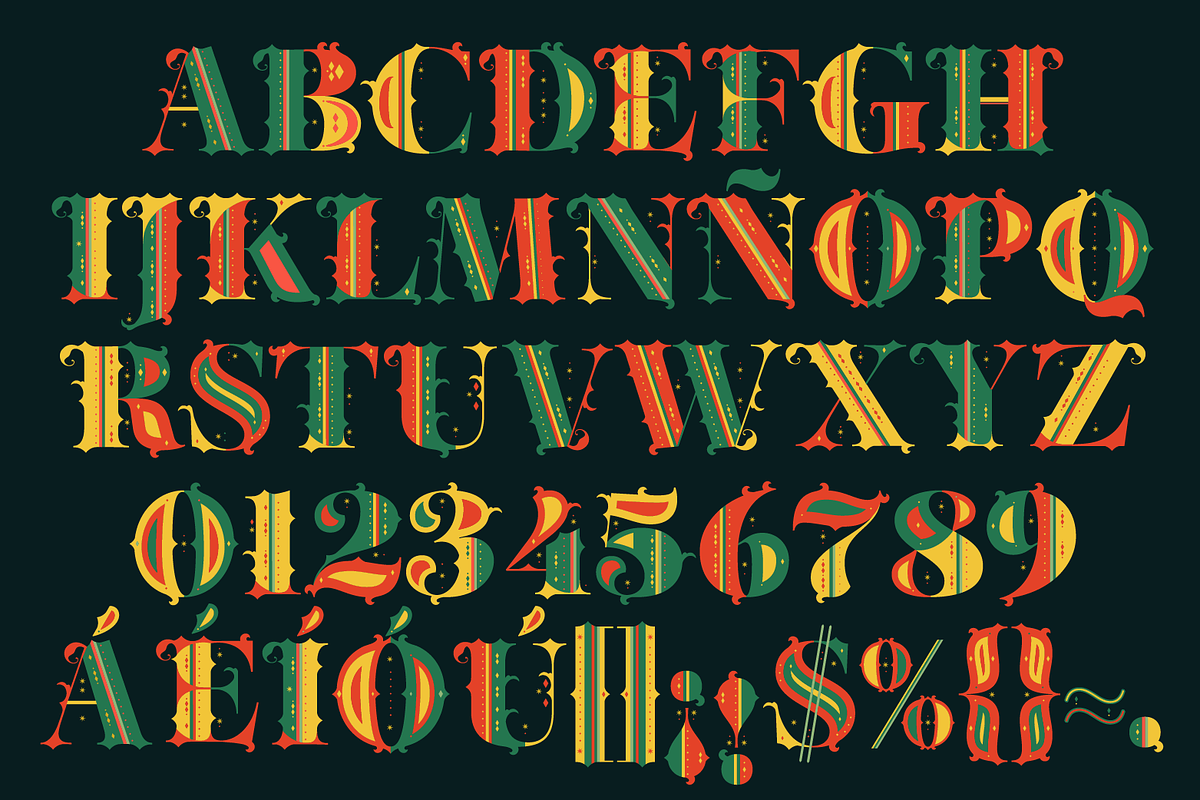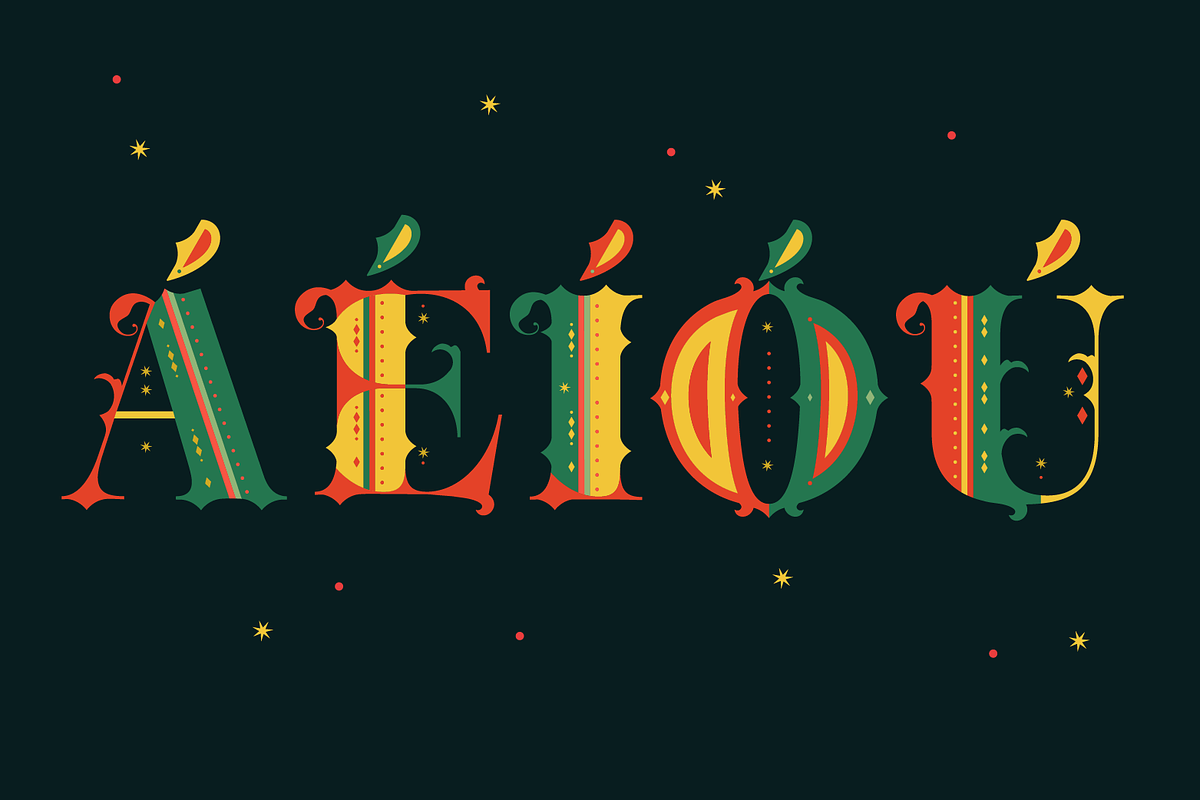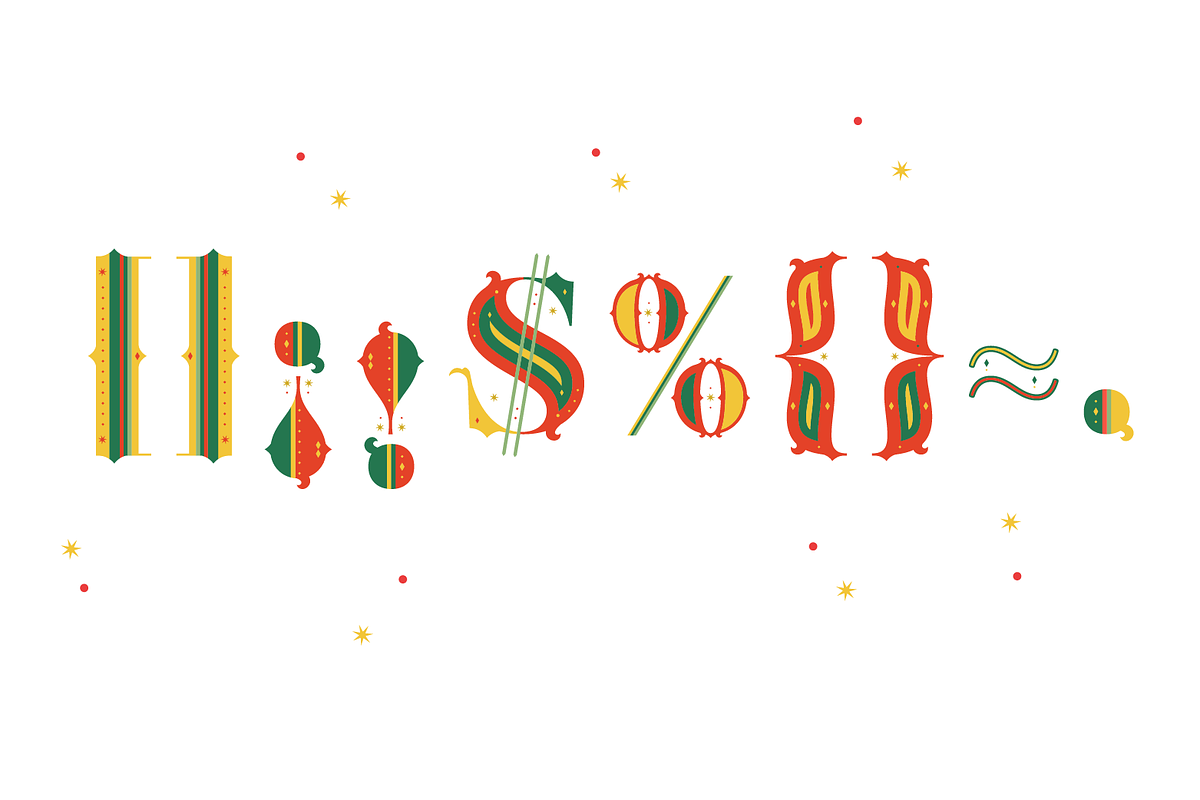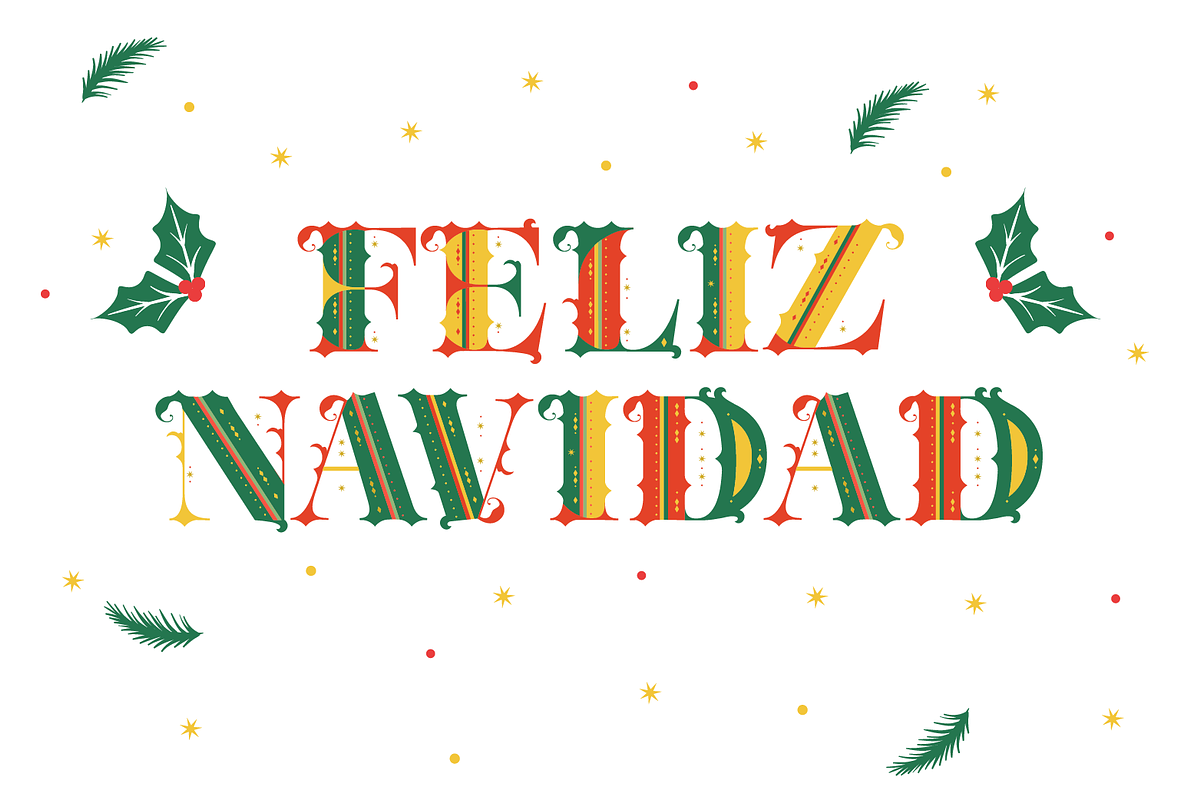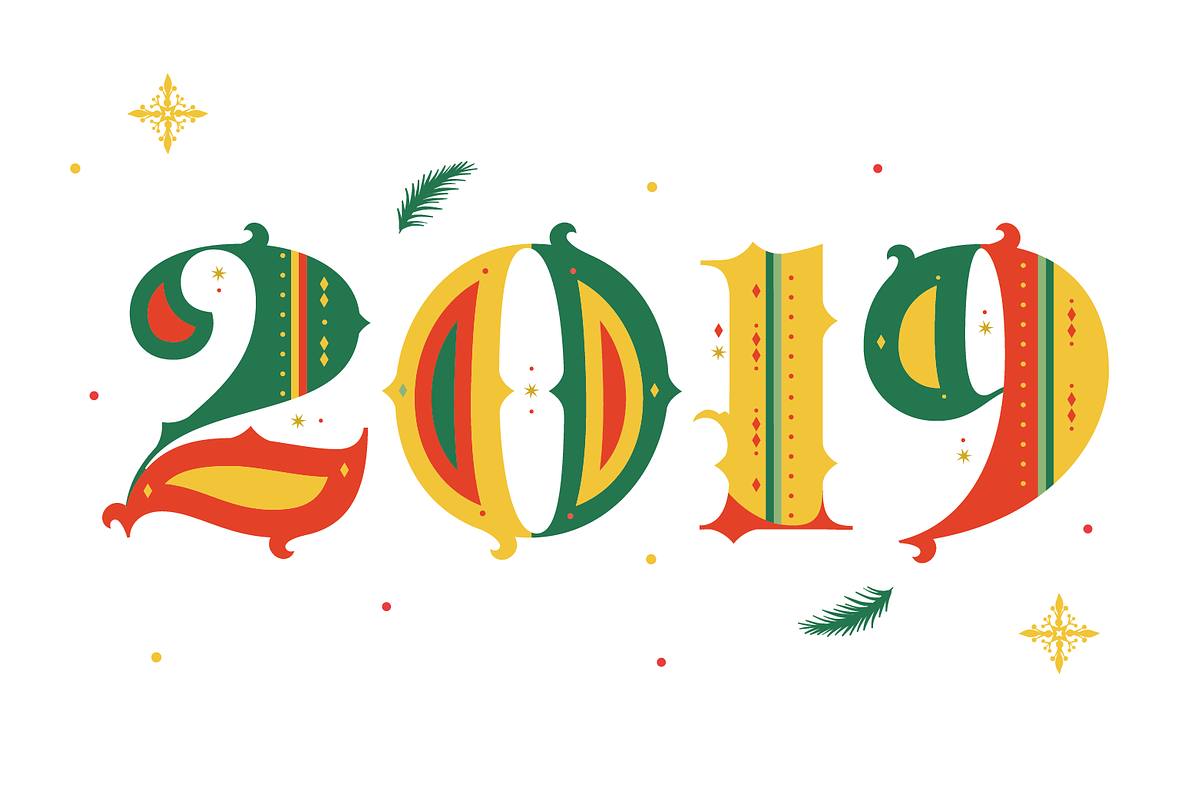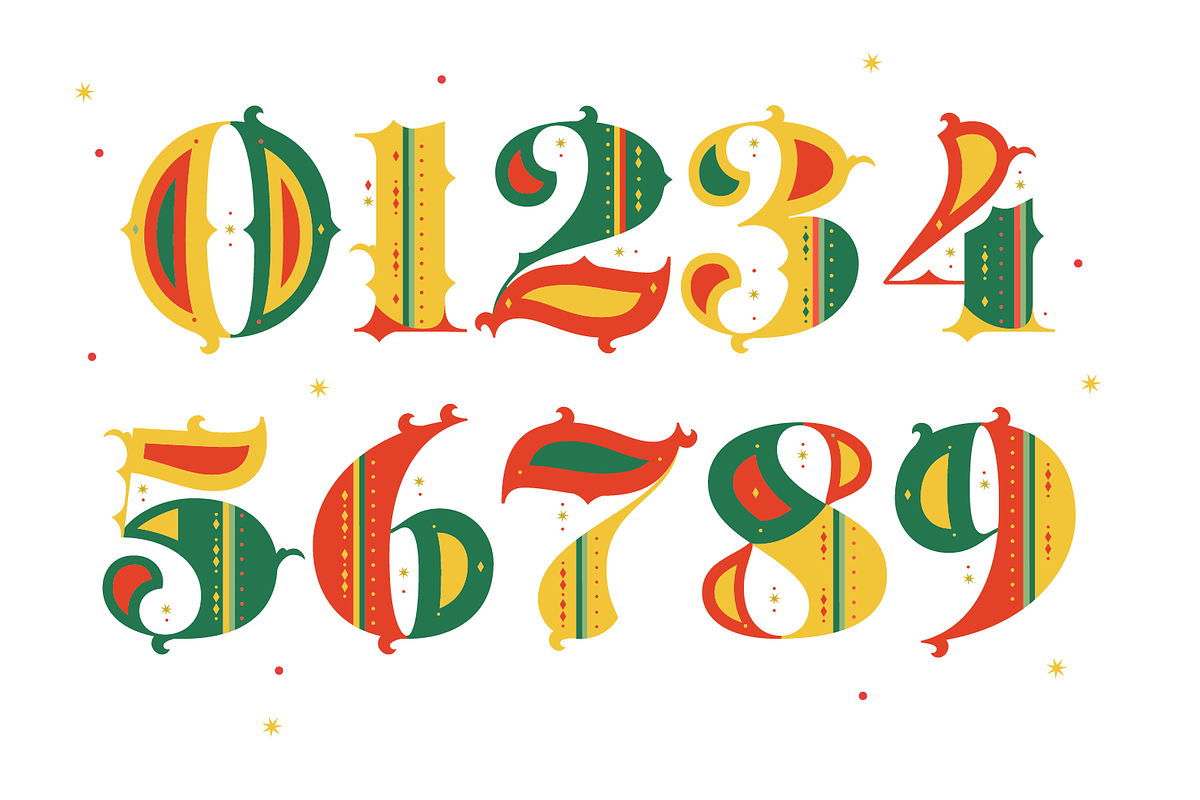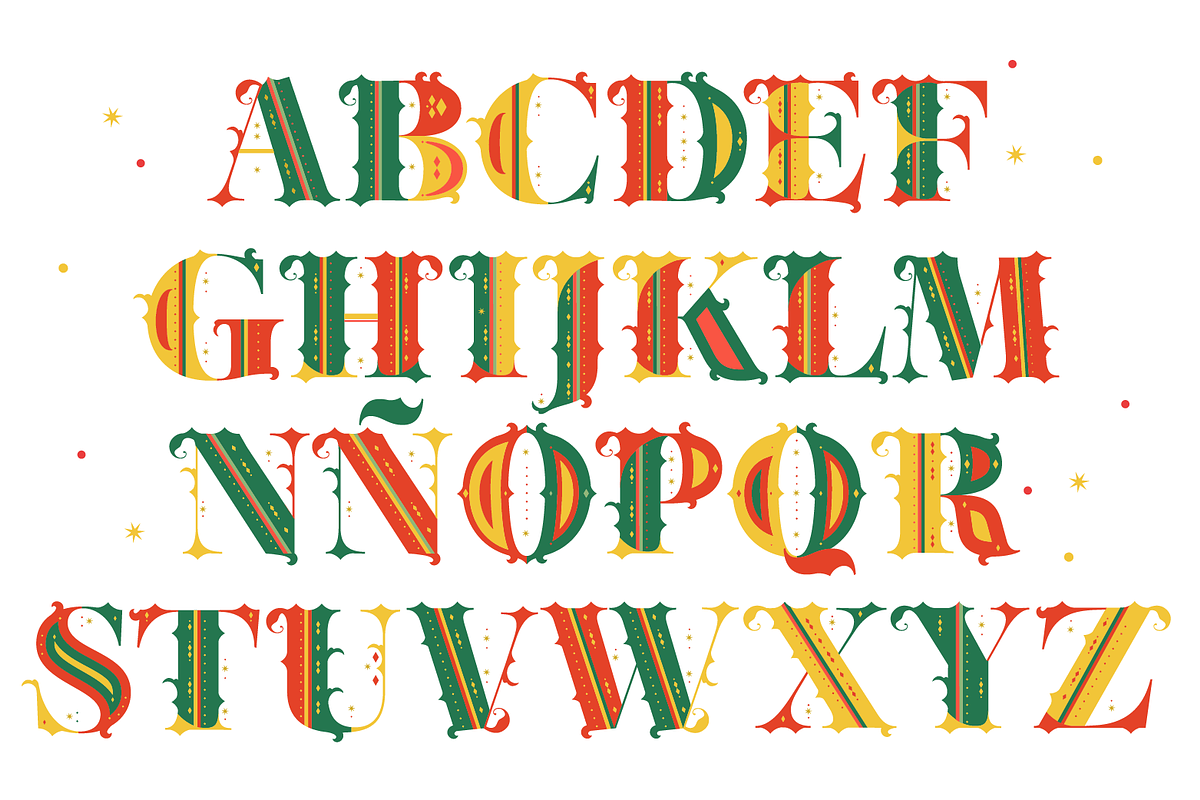
Aires Christmas SVG Color Font
Beautiful and decorative typography to use in Christmas pieces.
Aires Christmas SVG Color Font by yaisalinas fits naturally into Branding, posters, packaging, typography.